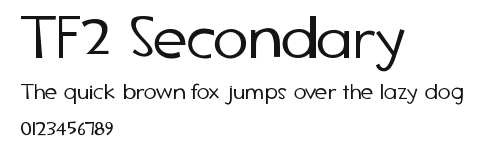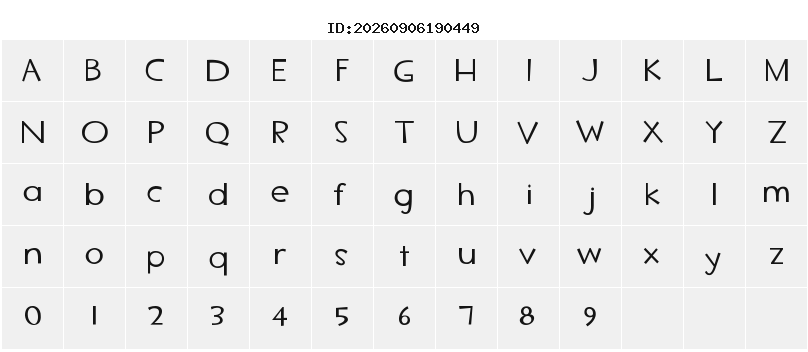
• Font Name: TF2 Secondary
• Designer: Andrea Wiklund
• Manufacturer: Valve Corporation
About TF2 Secondary.ttf
TF2 Secondary.ttf is a modern, elegant sans-serif font designed for ultimate readability and visual harmony. Perfect for branding, headlines, web design, and print materials.